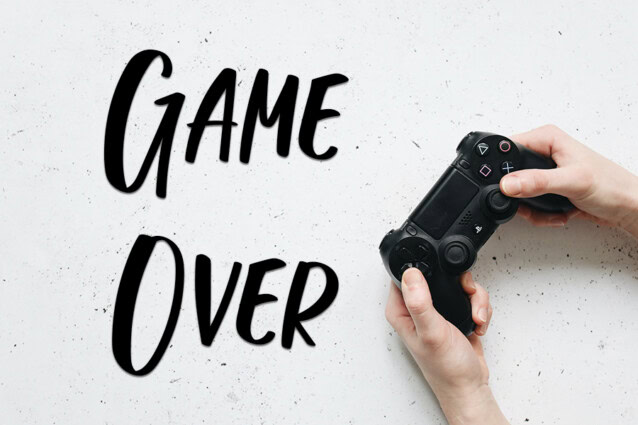
Simple Christmas Script Font
Simple Christmas Script Font is a stylish handwritten font with a contemporary atmosphere and impeccable form, inspired by a timeless classic calligraphy. Balanced and varied, this font was designed to enhance the beauty of your projects. This font is PUA encoded which means you can access all of the amazing glyphs and ligatures with ease!